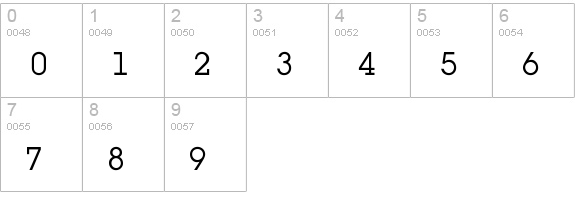
Lubalin Graph* Expert Book SC Font Details
Lubalin Graph* Expert Book SC is a comfortable, highly readable variant in the Lubalin typeface family \xE2\x80\x94 well suited to long-form body text, articles, and editorial content.
Lubalin Graph* Expert Book SC font is a sophisticated and elegant typeface that exudes professionalism and style. Its clean lines and sharp edges make it ideal for a wide range of design projects, from branding to editorial layouts. This font is perfect for conveying a sense of authority and sophistication, making it a popular choice among graphic designers and creatives. What sets Lubalin Graph* Expert Book SC font apart is its versatility and readability. Whether used in body text or headlines, this font maintains its legibility and visual appeal, ensuring that your message is communicated clearly and effectively. The best part? Lubalin Graph* Expert Book SC font is free to download at FontsMarket.com, making it accessible to designers of all levels. So why wait? Add this elegant and professional font to your collection today and take your designs to the next level.